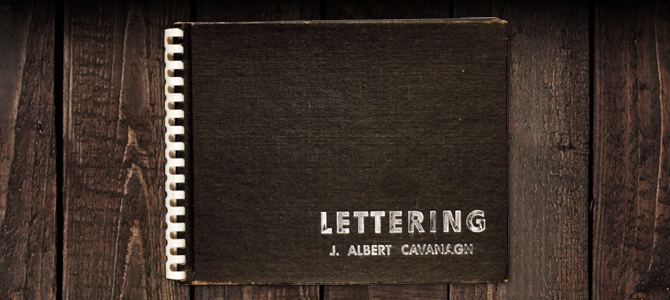
Lettering - J. Albert Cavanagh - 1946
One of the finest and most complete repositories of alphabets and lettering styles from the mid-20th century books in my collection, with expertly drawn popular aesthetics of the era. Beyond that, there is also a wealth of information in the book's introduction that deals with letter-spacing, proportion, weight, and more.